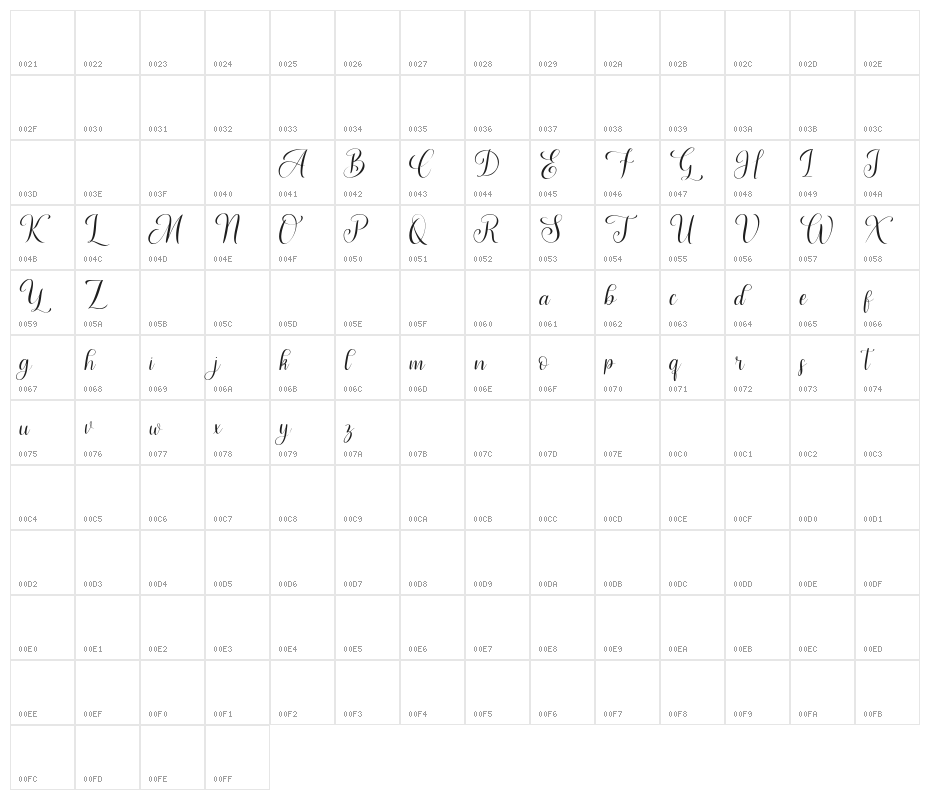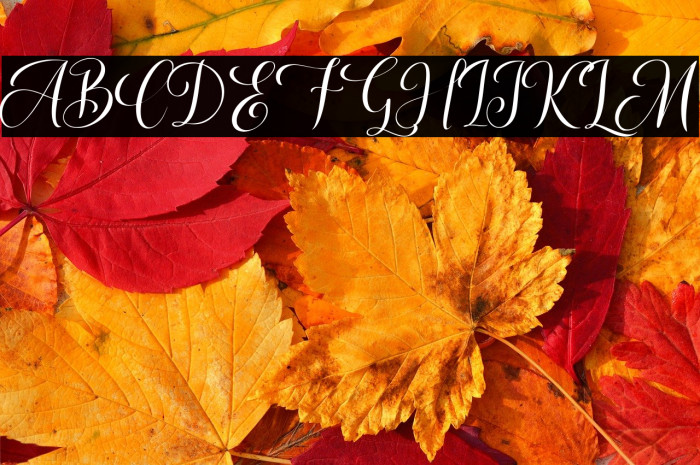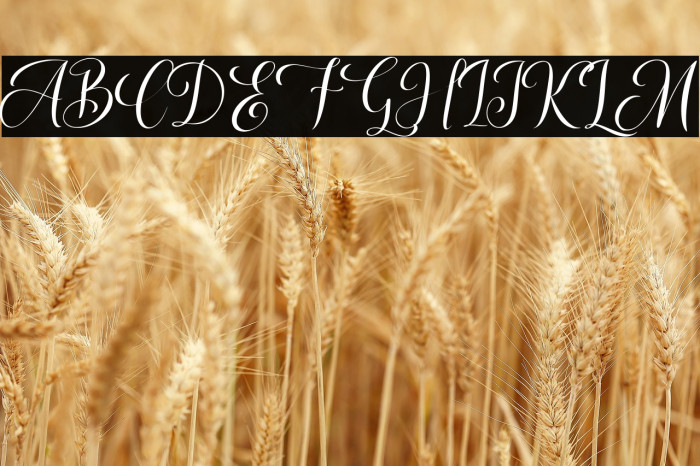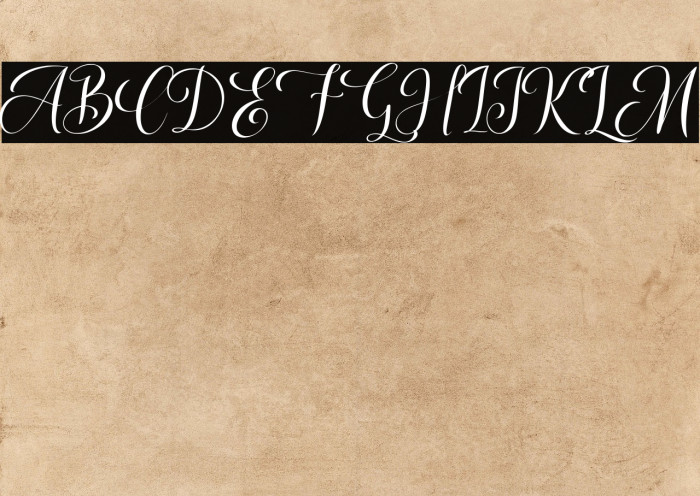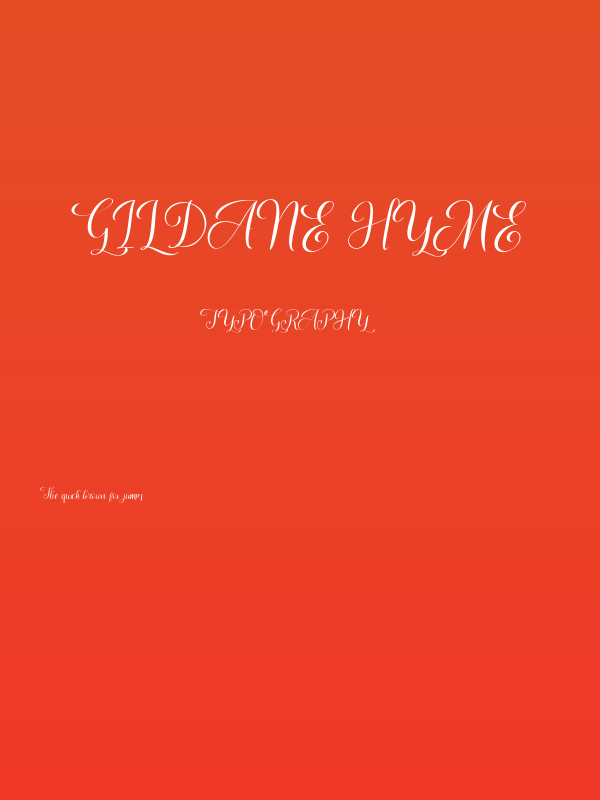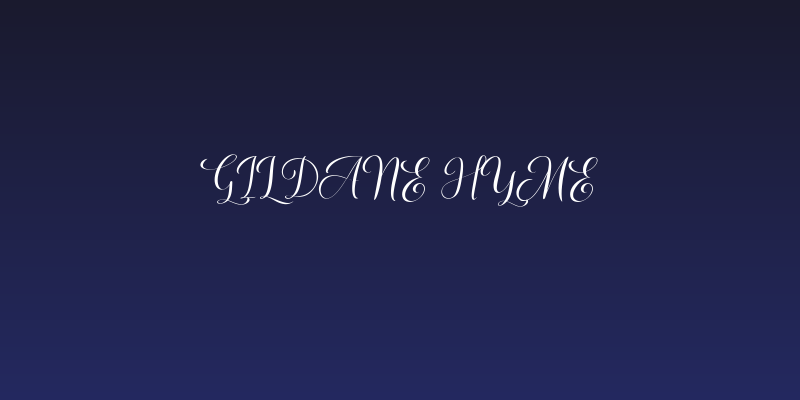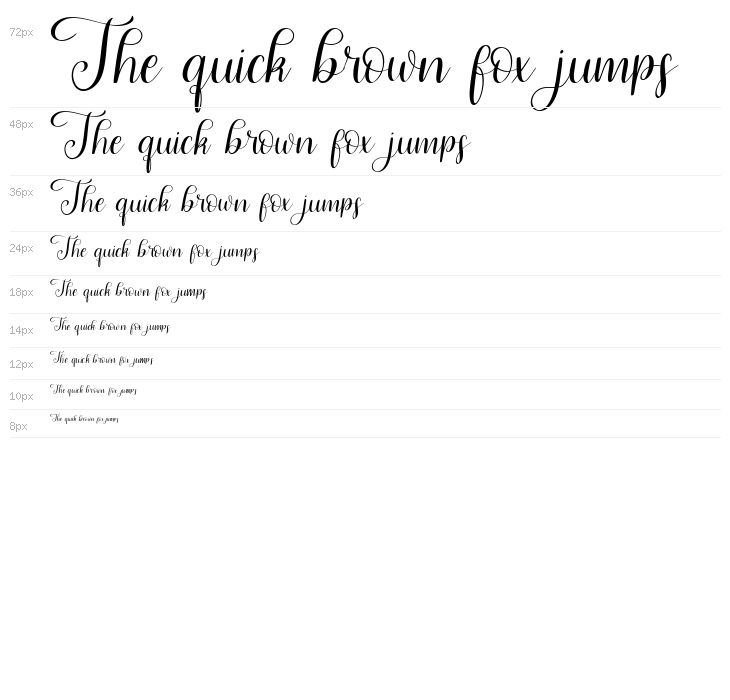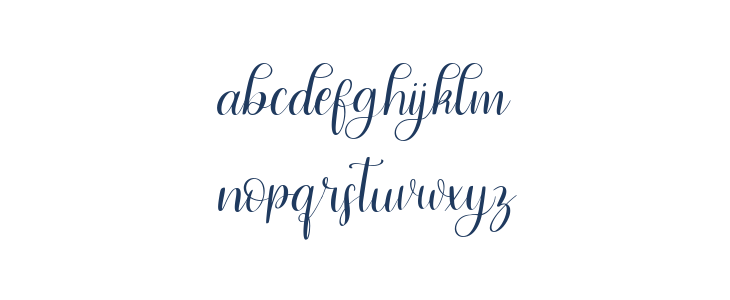
gildane hyme Font
gildane hyme Description
This elegant script font features flowing, interconnected letters with a calligraphic style. The uppercase letters are ornate, with sweeping curves and flourishes that add a touch of sophistication and grace. The lowercase letters maintain a consistent style, with smooth transitions and a slightly more restrained flourish compared to the uppercase. The font's overall appearance is both decorative and refined, making it suitable for formal invitations, branding, and other projects that require a touch of elegance. The strokes vary in thickness, providing a medium contrast that enhances readability while maintaining its artistic flair.
| Overall Style | Elegant, Decorative |
| Use Case | Invitations, Branding, Greeting Cards |
| Proposed Projects | Ideal for wedding invitations, elegant branding, greeting cards, and formal event programs. |